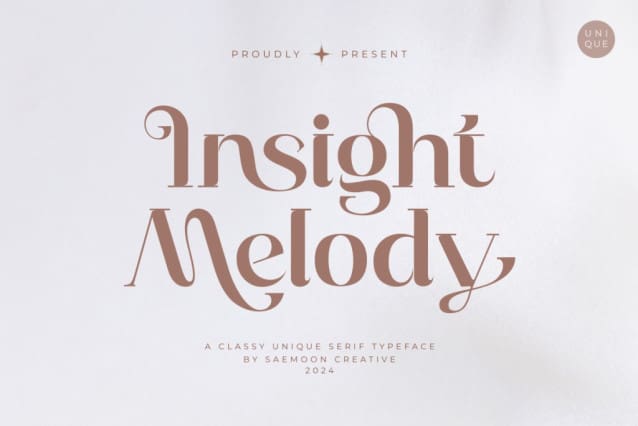
Insight Melody Font
Insight Melody Font is a symbol of elegance and captivating originality. Crafted with detailed design harmony, each letter depicts profound beauty and captivating intelligence. With a classic touch combined with modern nuances, this font creates an atmosphere that is elegant yet retains its unique authenticity.